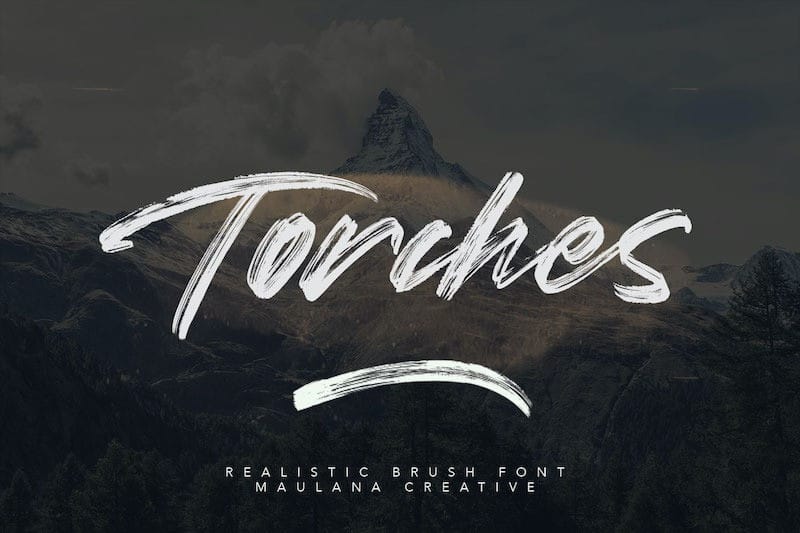
Torches Brush Font
Introducing Torches Brush Font, with the natural stroke of hand quick. This typeface is designed and shared by Maulana Creative. And this font perfect for handwritten quotes, product packaging, fashion magazine, signature logo, photography, merchandise, branding projects, poster, social media post, book cover, flyers, and advertising. You can create easily and make it as if you wrote it yourself.